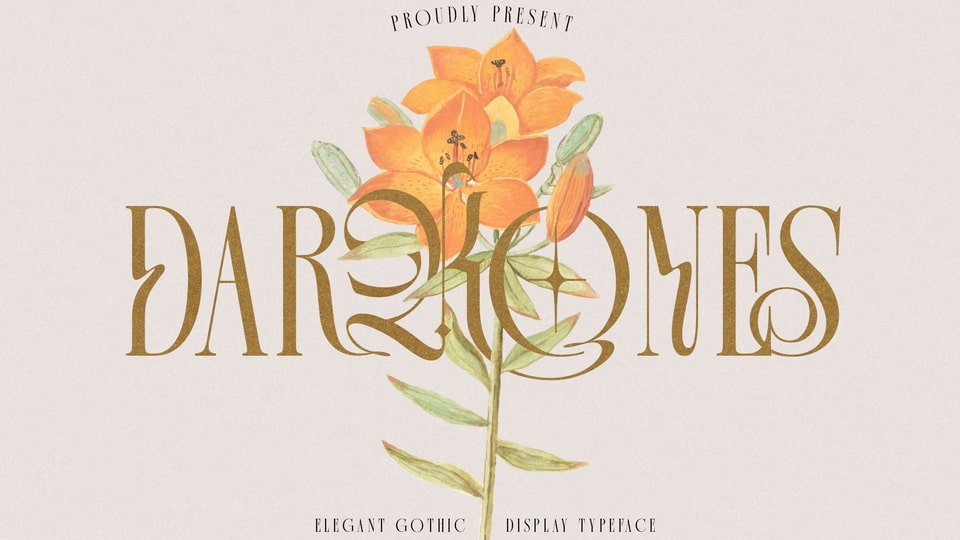
Download Darkones font, a unique combination of blackletter and dynamic serif styles, making it perfect for magazine designs, tattoo art, social media ads and clothing.